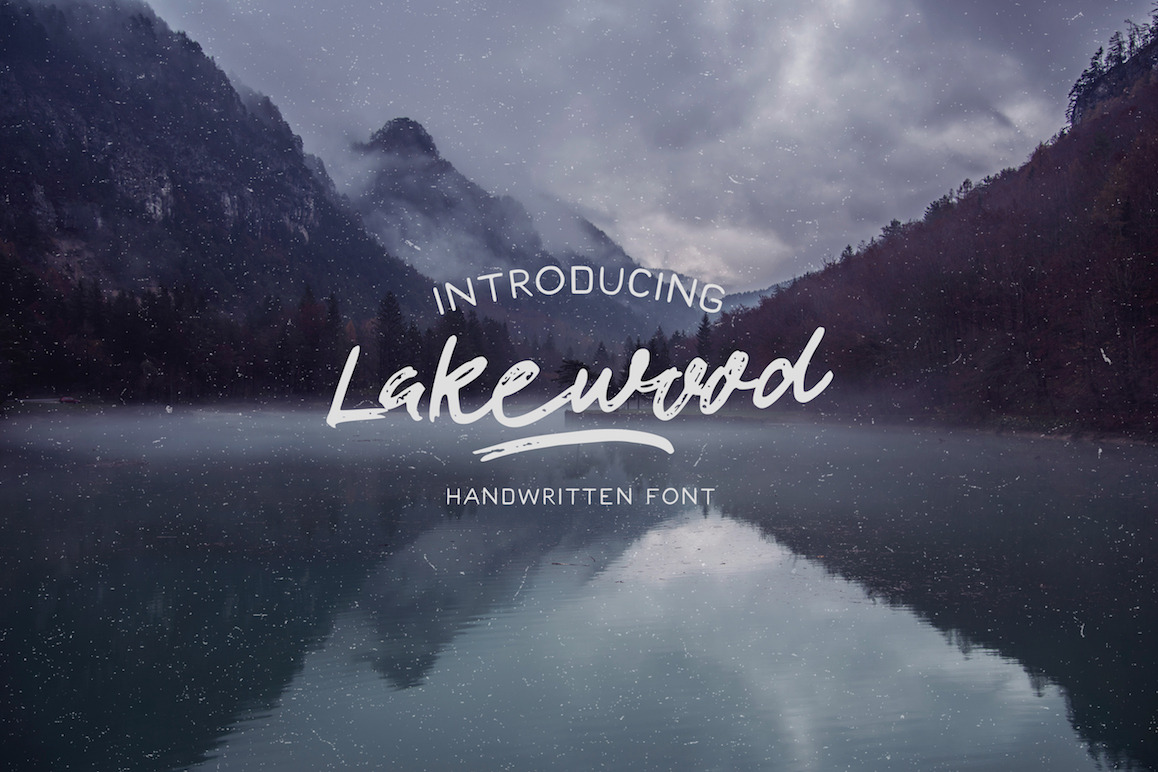
Lakewood - Handmade Font
Lakewood is a handmade brush font designed out of a pentel tip. This typeface includes all uppercase and lowercase letters, alternates, ligatures and swashes. It works great for both modern and vintage style work. Great for getting that *handcrafted look you've been looking for!